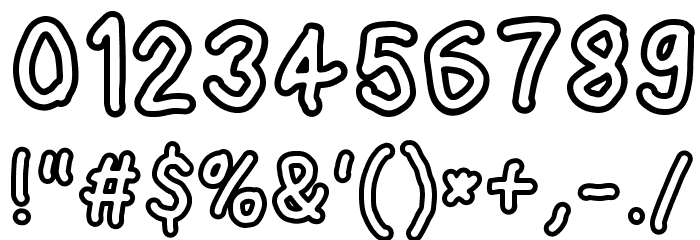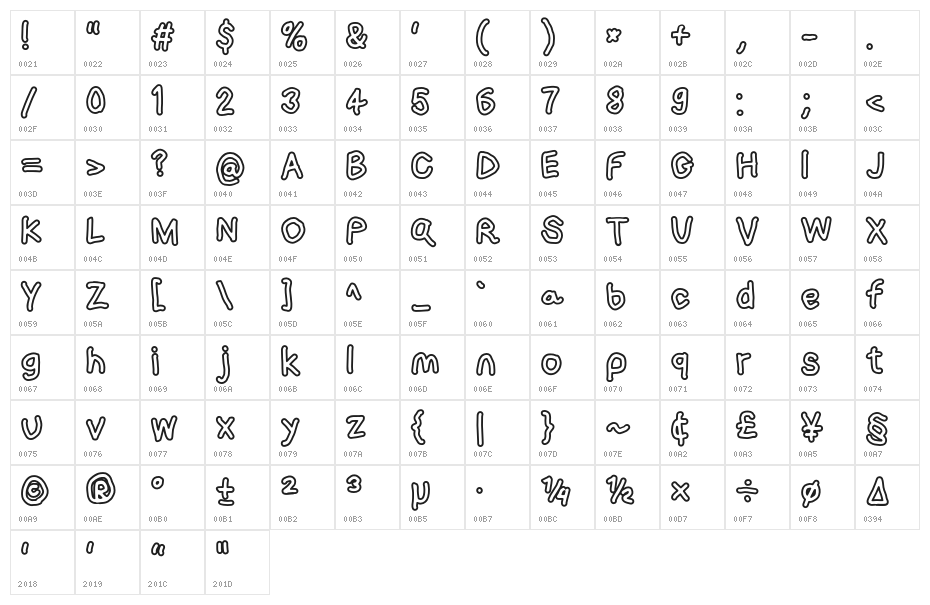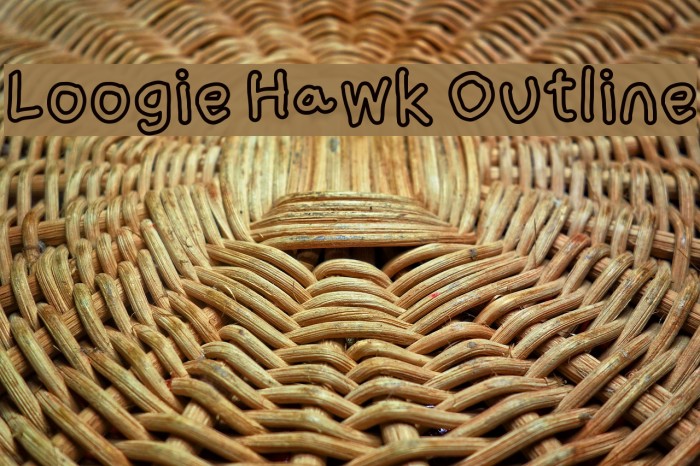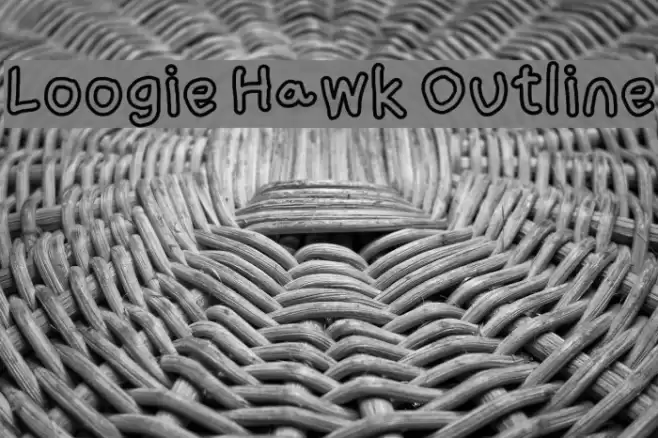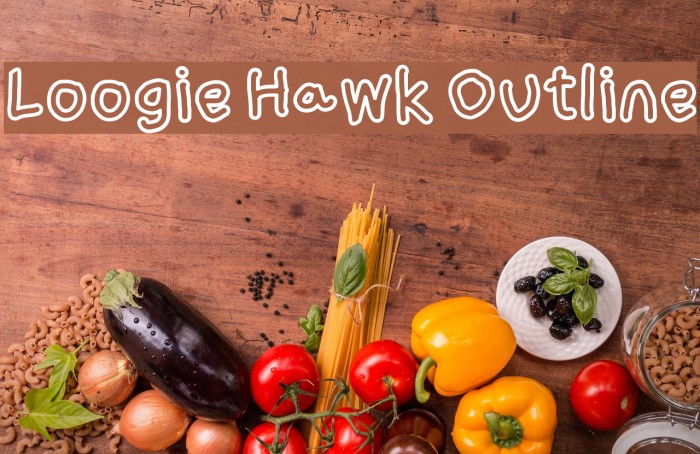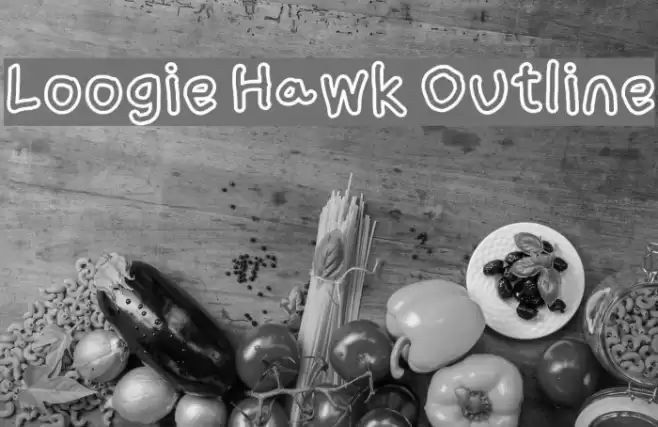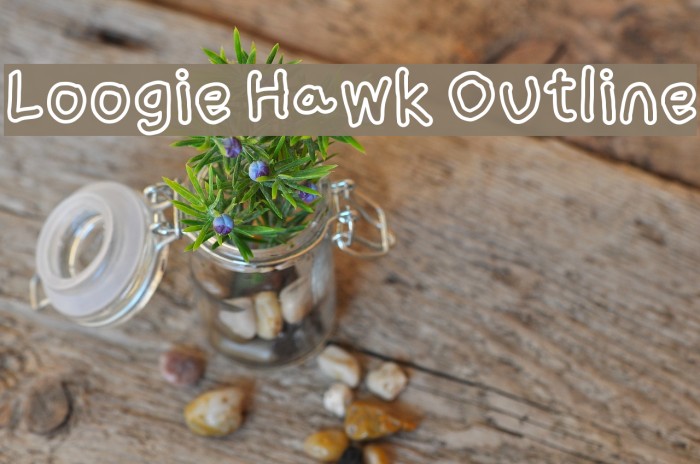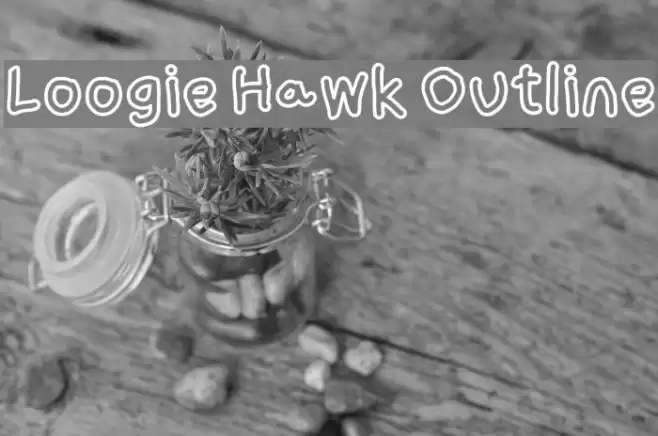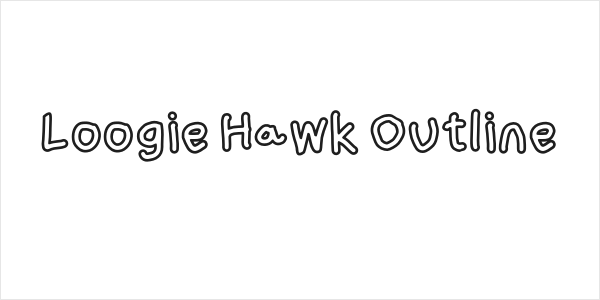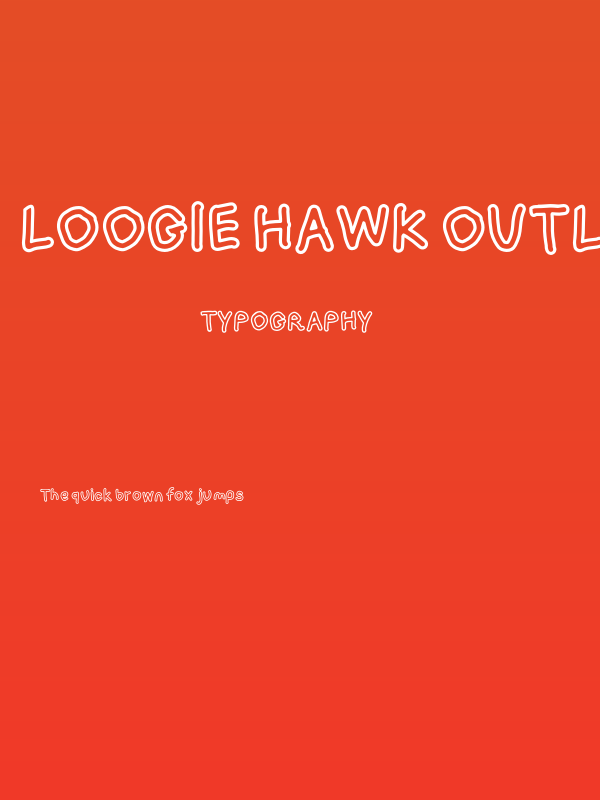
Loogie Hawk Outline Font
Loogie Hawk Outline Description
This playful and bold font features an outline style that gives it a cartoonish and whimsical appearance. The characters are rounded and slightly irregular, adding a hand-drawn feel. The uppercase and lowercase letters maintain a consistent style, with a uniform stroke width that emphasizes the outline. The numbers and special characters follow the same design principles, ensuring a cohesive look across all elements. This font's unique style makes it stand out, making it ideal for projects that require a fun and engaging visual impact.
| Overall Style | Playful, Cartoonish, Hand-drawn |
| Proposed Projects | Ideal for children's books, comic strips, playful branding, and creative posters. |